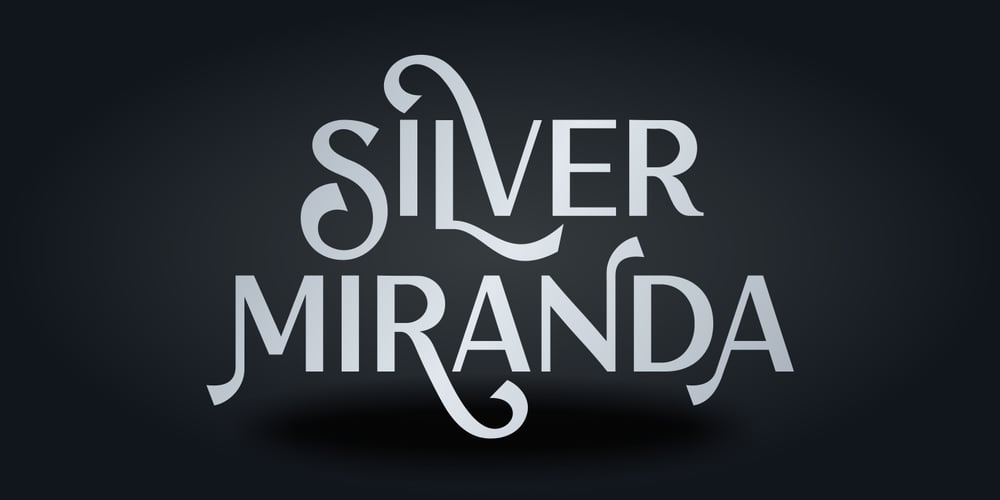
Silver Miranda
Silver Miranda font
Silver Miranda Font Family was designed by Bayu Noor Witarsa and published by Asenbayu. Silver Miranda contains 1 styles and family package options. Silver Miranda is a sans serif font with an elegant and classy. Each typeface is crafted to produce a vintage modern font. This font features can direct you to access unique typeface collections. You can make works with clean elegant and professional writing, or make attractive decorative with alternative and ligature styles. This font is great for creating any desired projects such as logos, posters, headlines, albums, quotes, clothes and many more. This font is perfect for you if you want to come up with something interesting! Please see the pictures provided. I would like to know how you can get creative with this font. Thank you!